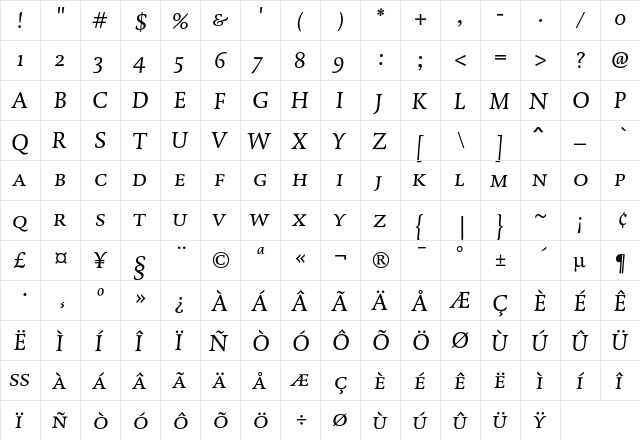
DTLDorianTCaps Italic Font Preview
DTLDorianTCaps Italic
Design Context for DTLDorianTCaps Typeface
DTLDorianTCaps takes a measured approach to typography — its balanced proportions and neutral character make it a reliable workhorse for both digital and print work. Its italic angle brings a sense of urgency and motion to the letterforms.
Pro Tip: Try DTLDorianTCaps for annotation and caption copy alongside an upright companion — the contrast in angle creates a dynamic but ordered typographic system.